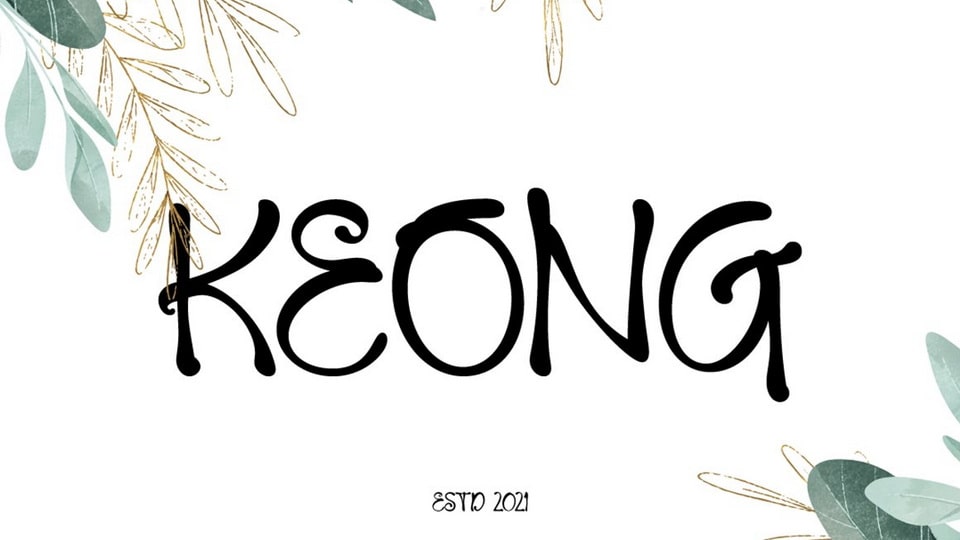
Download Keong font, a creative and attractive typeface that created with handwriting, the fonts comes unique style and joyful handwritten with ligatures and special alternate.